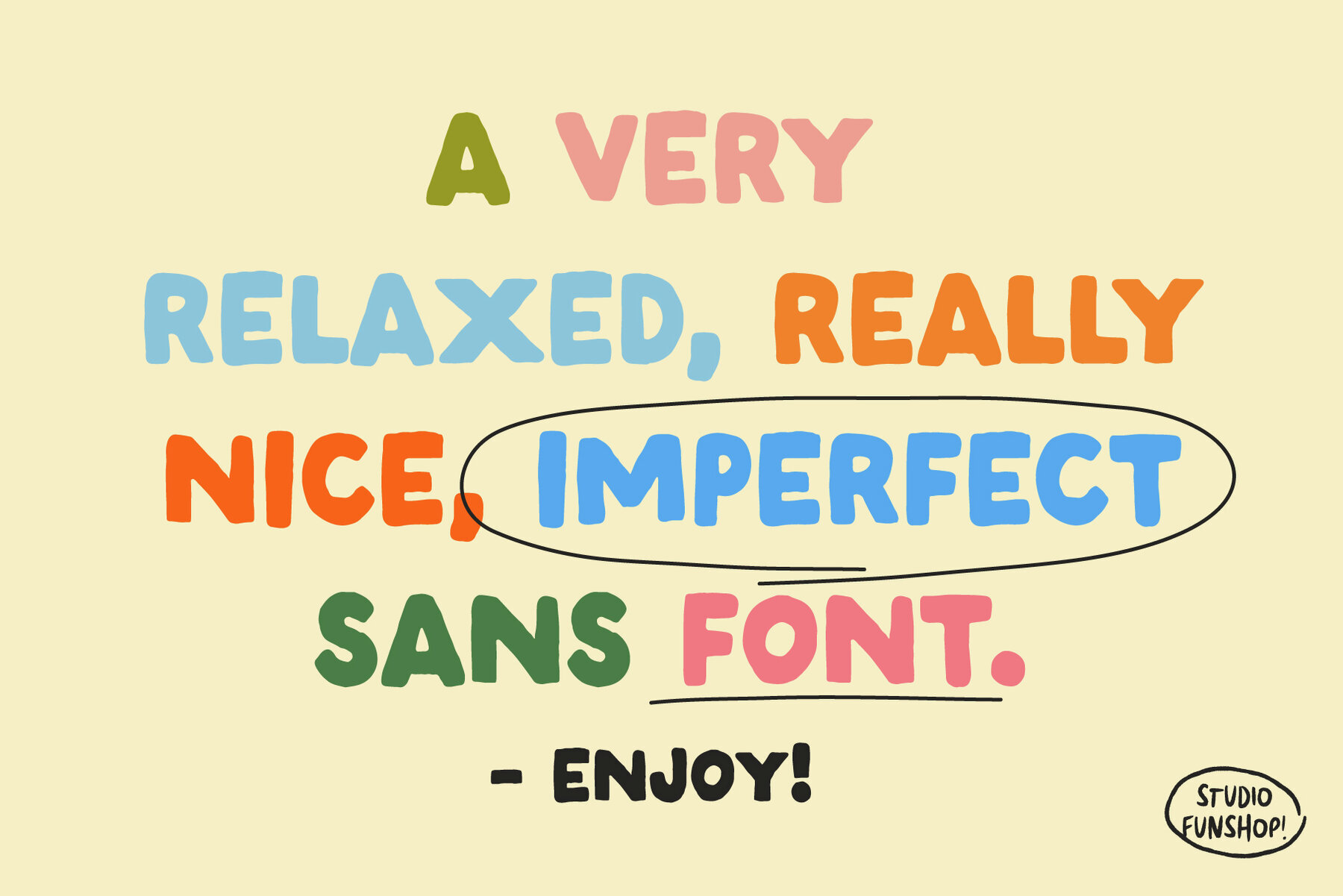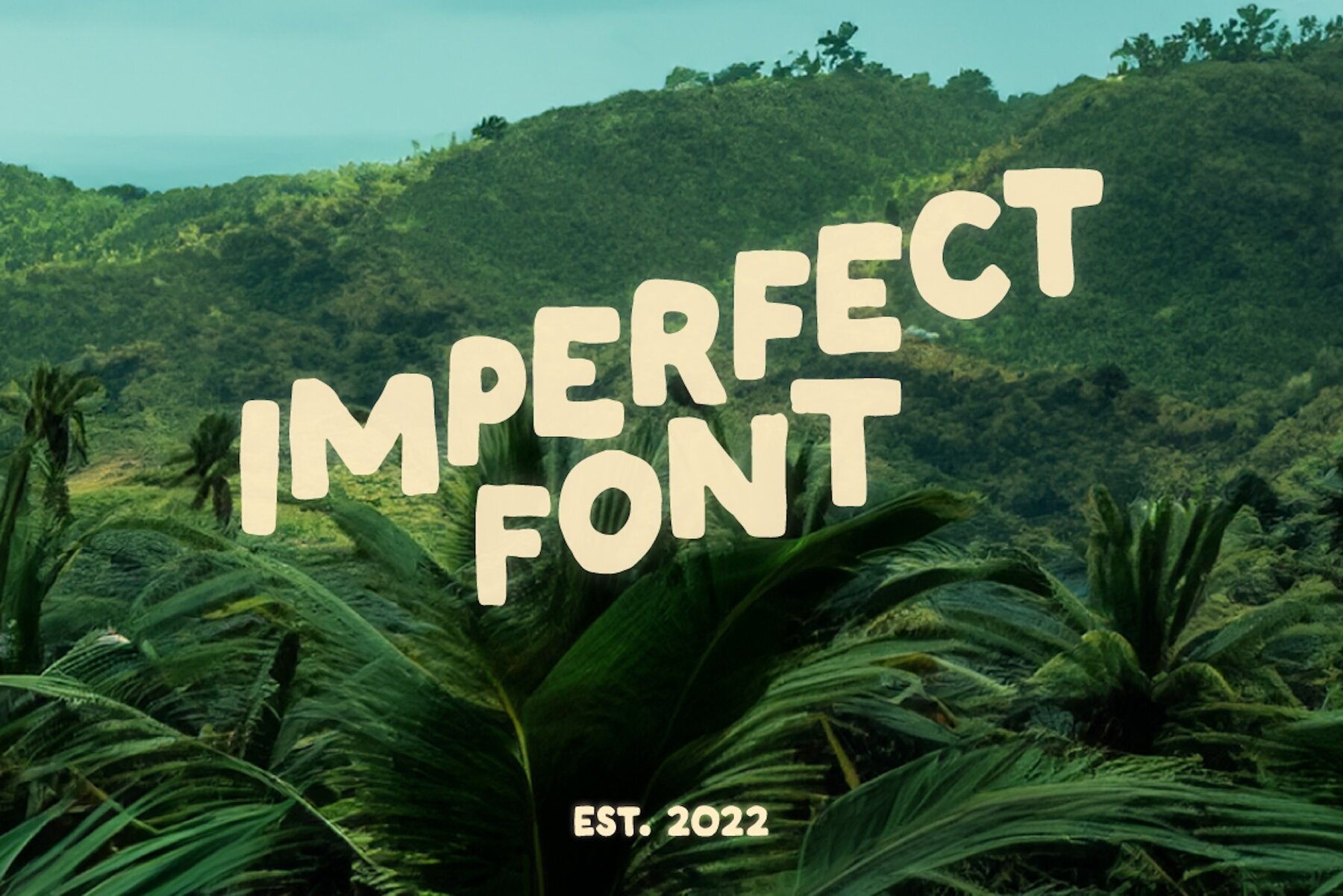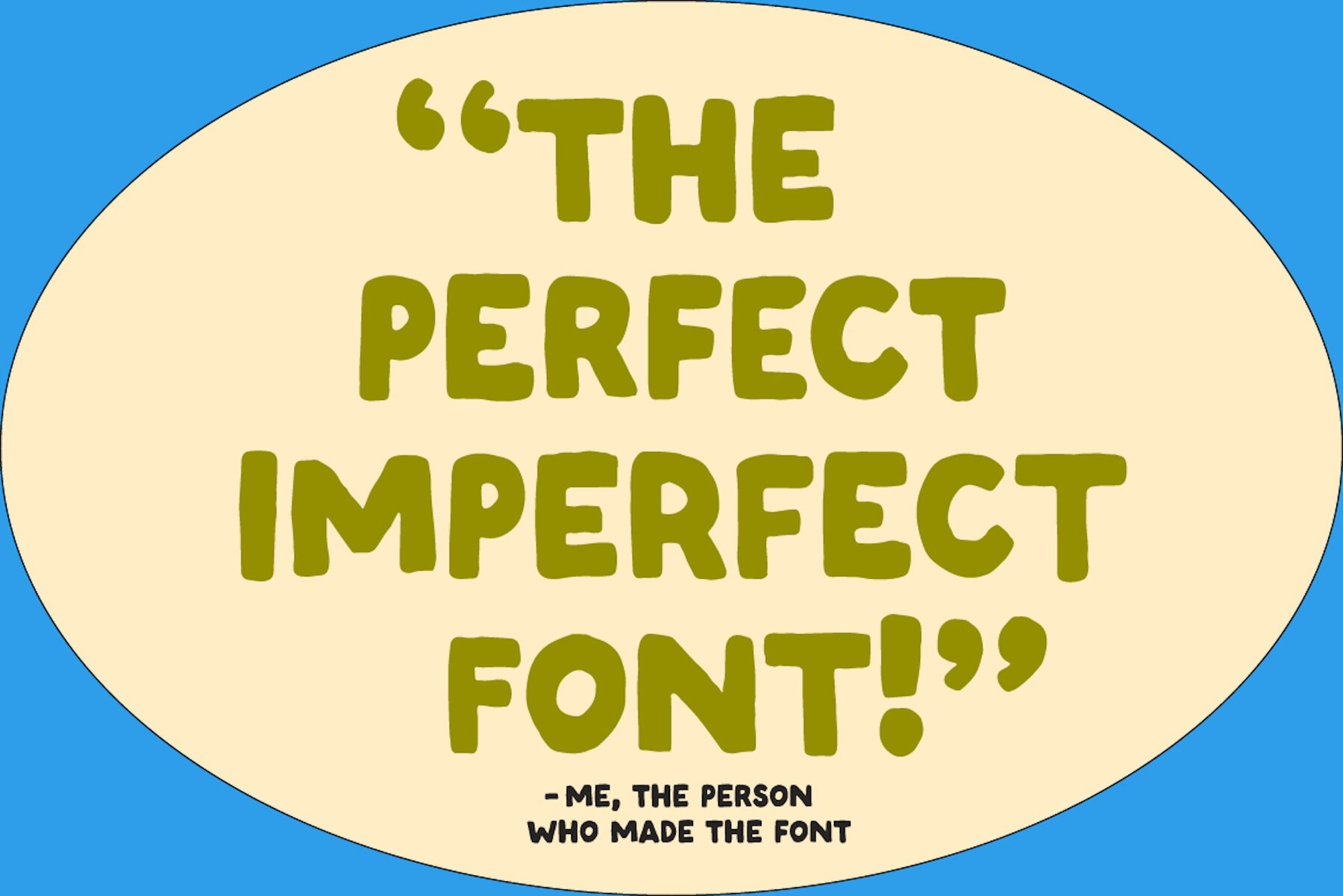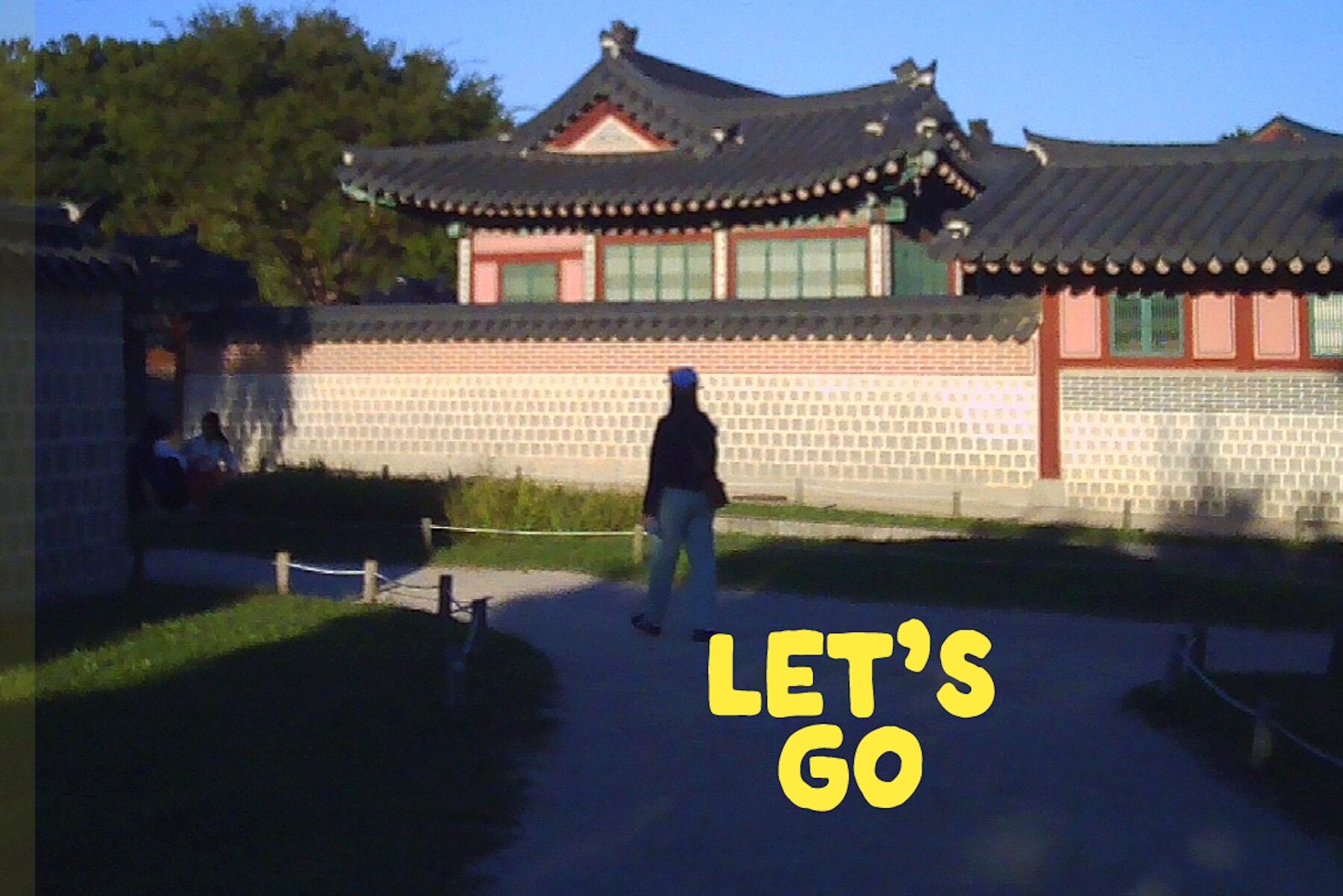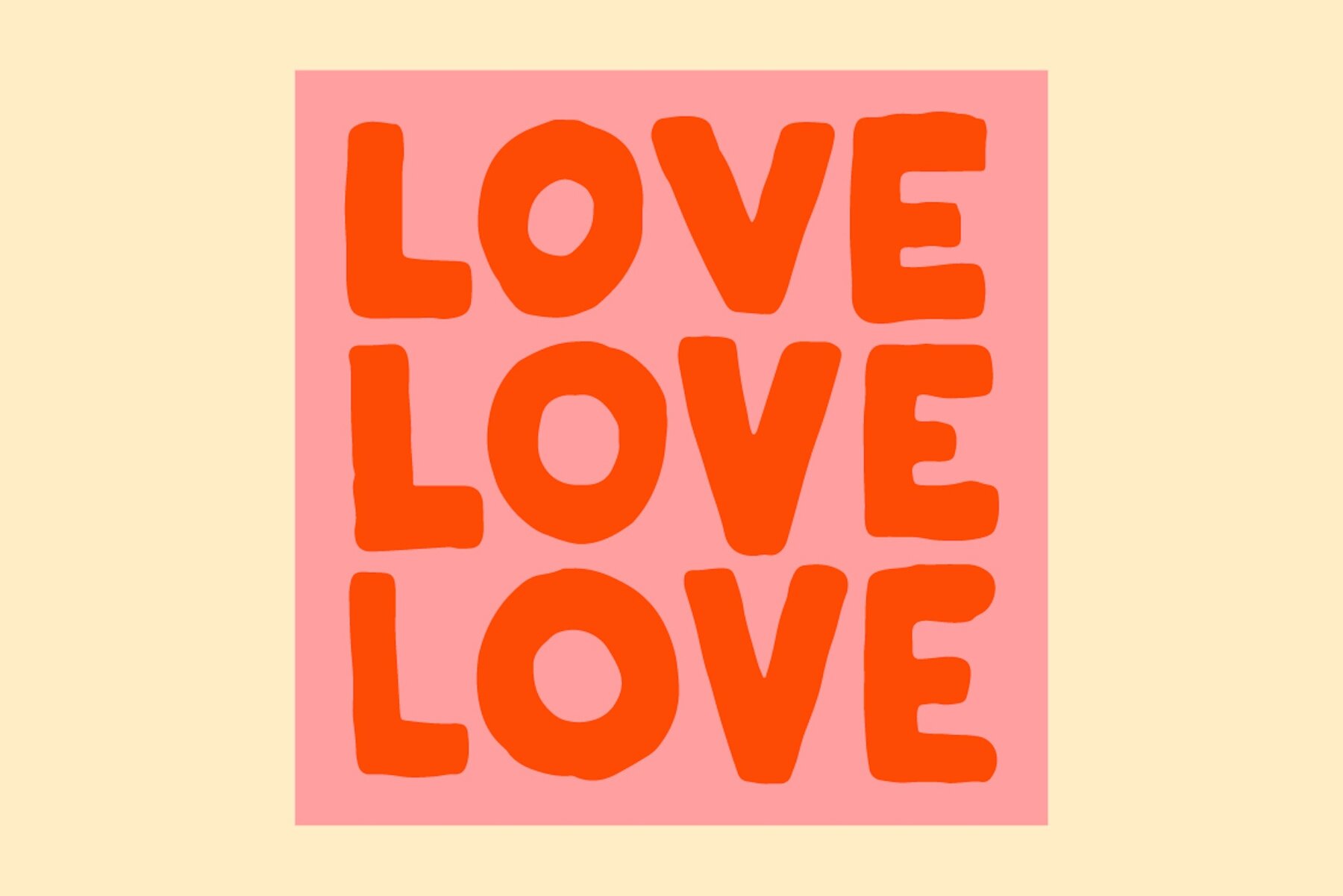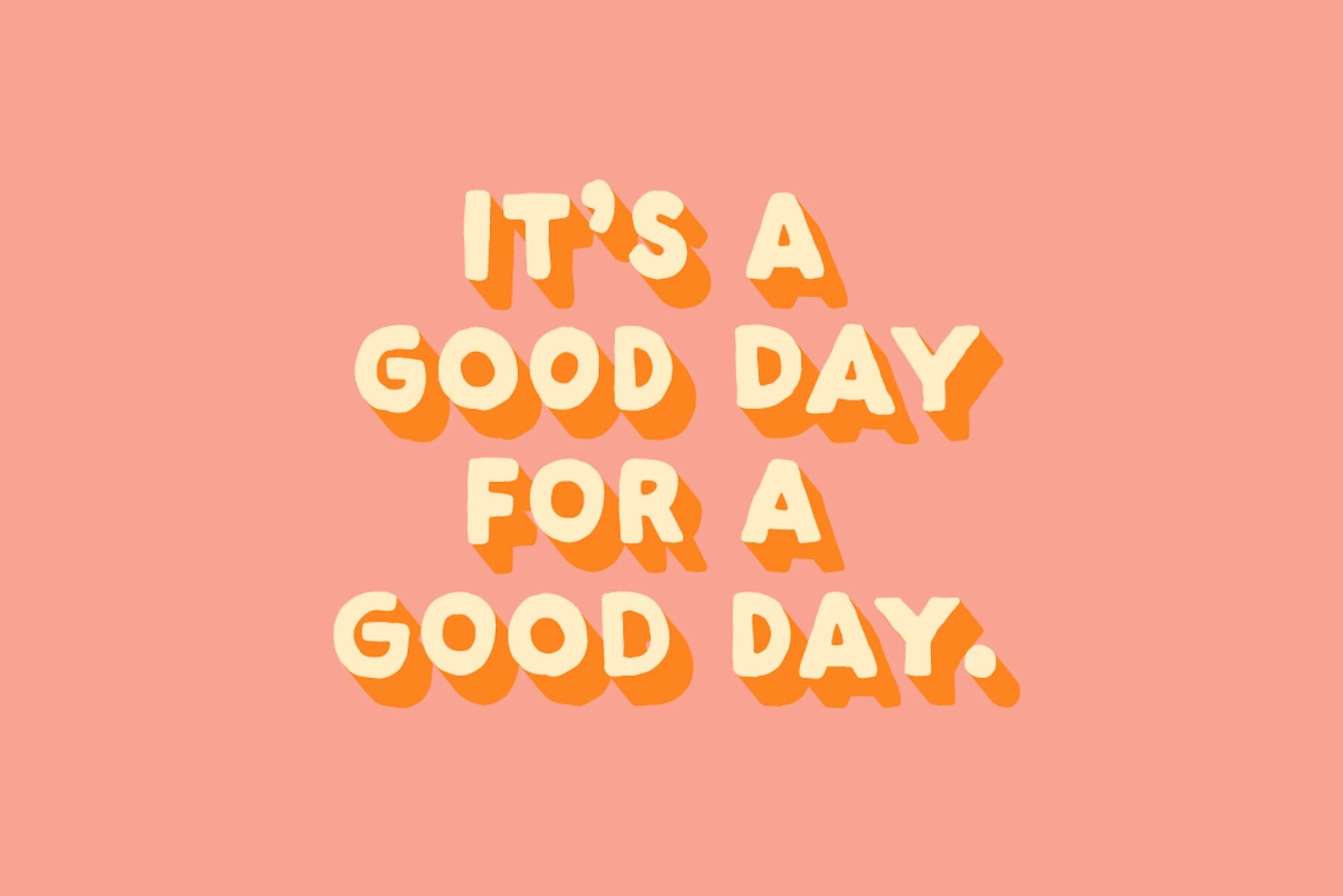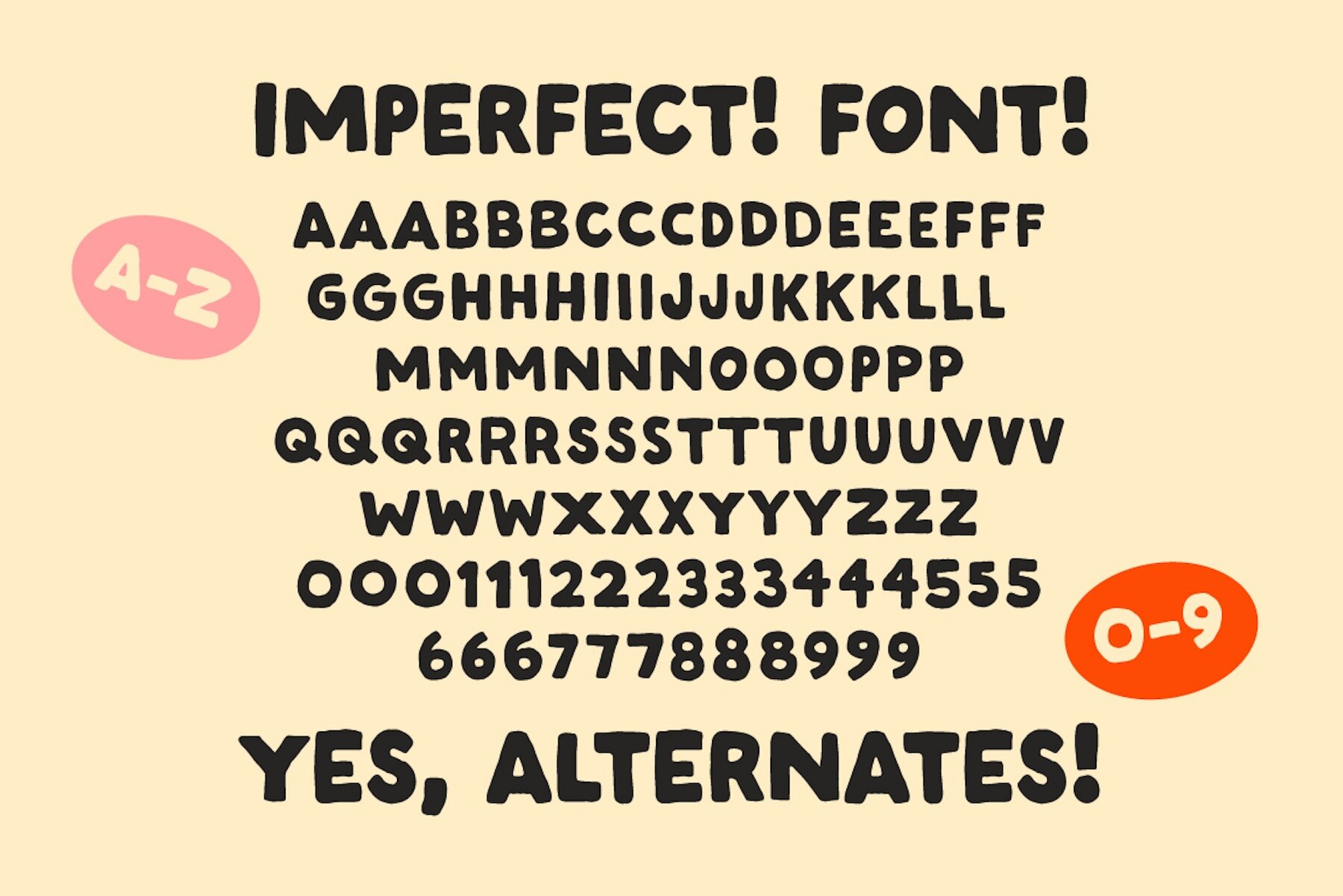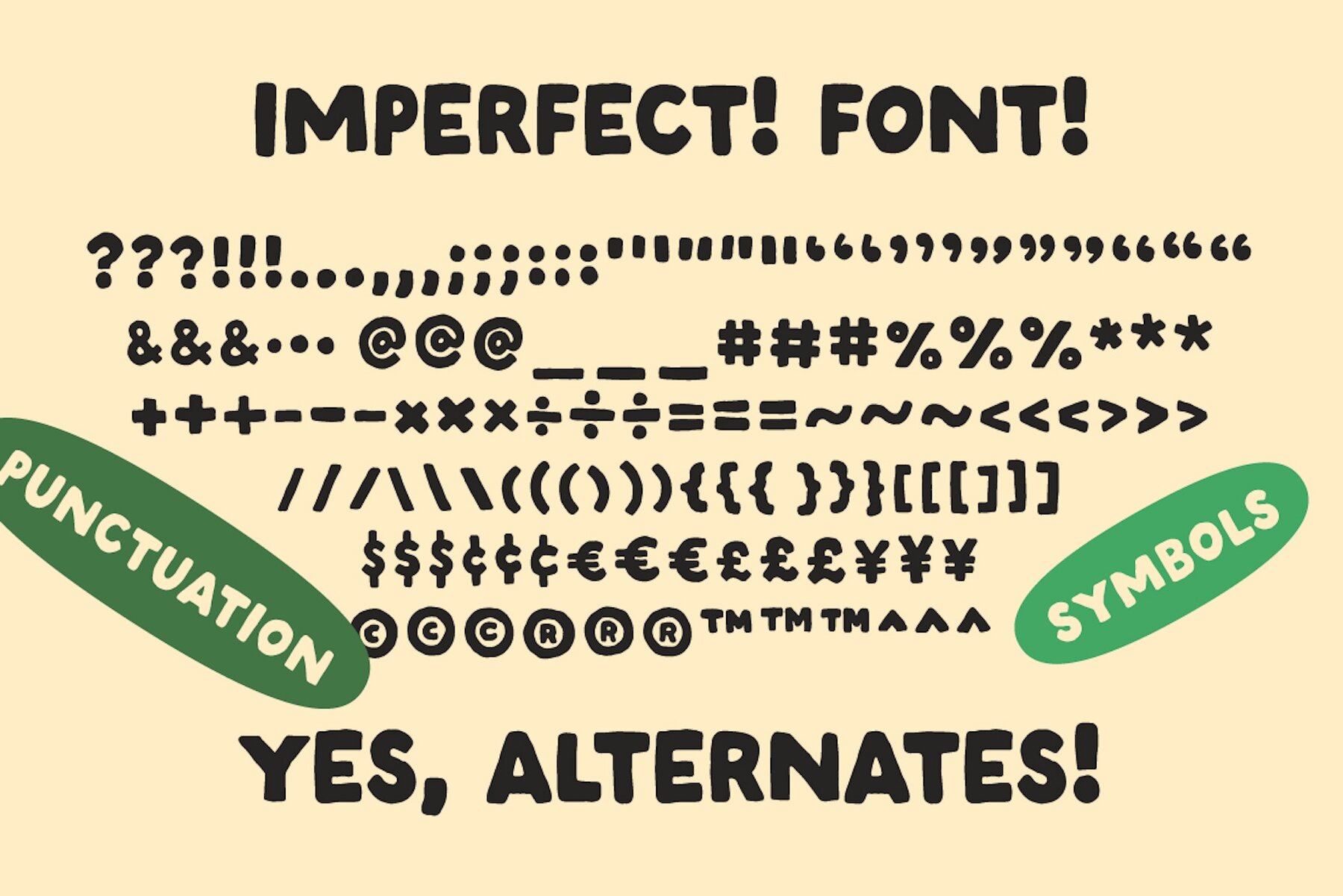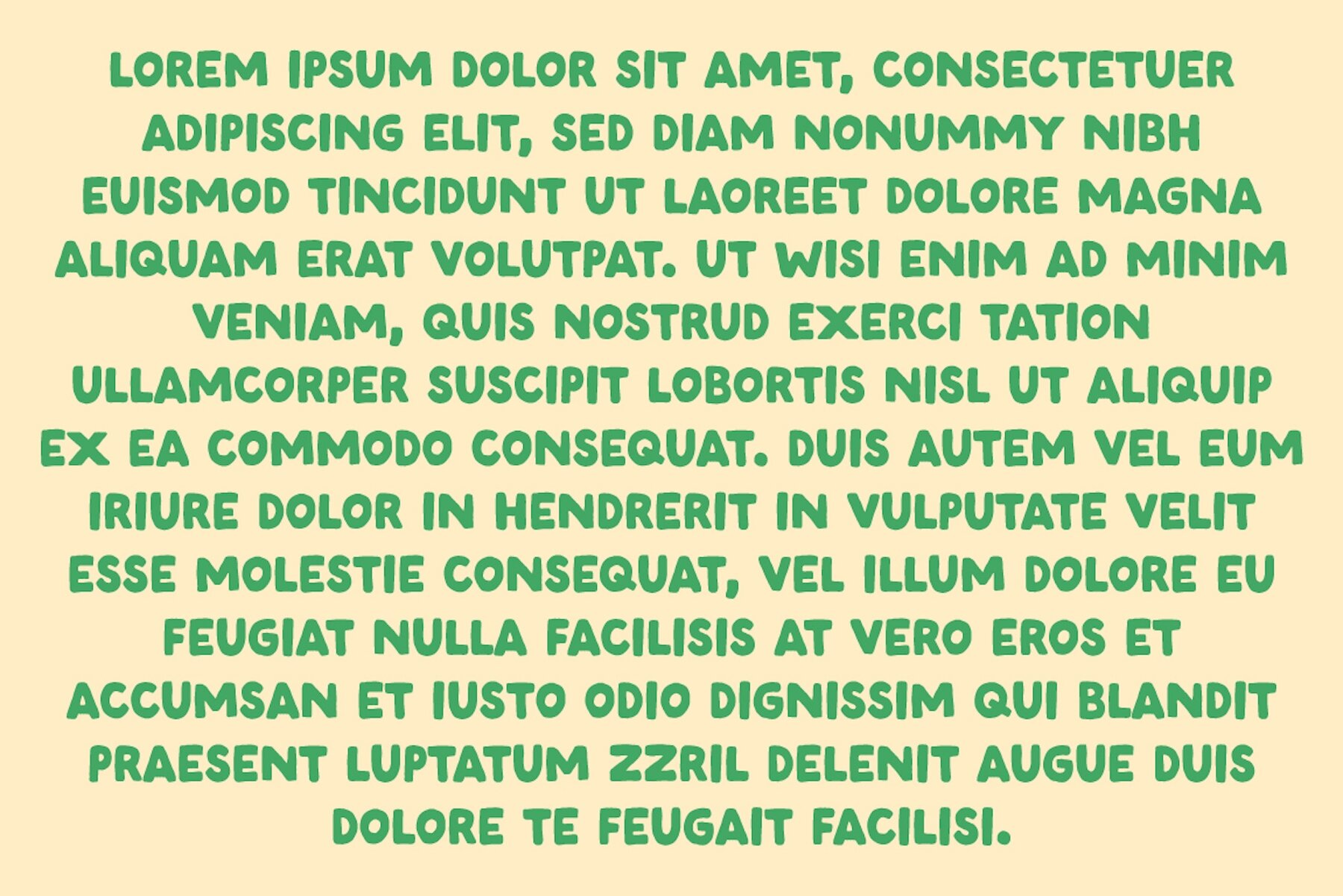
Imperfect Font
Hello Imperfect
This uniquely designed sans serif font captures the essence of handcrafted elegance. Each character is drawn by hand, reflecting the delightful imperfections synonymous with personal handwriting. Ideal for logos, quotes, art, and headlines, this font brings a homemade feel to a variety of creative projects. The inspiration stems from vintage printing, hand-lettering, and the simple joy of doodling, providing a nostalgic yet fresh touch.Handwritten Sans Serif: Embrace Handmade Appeal